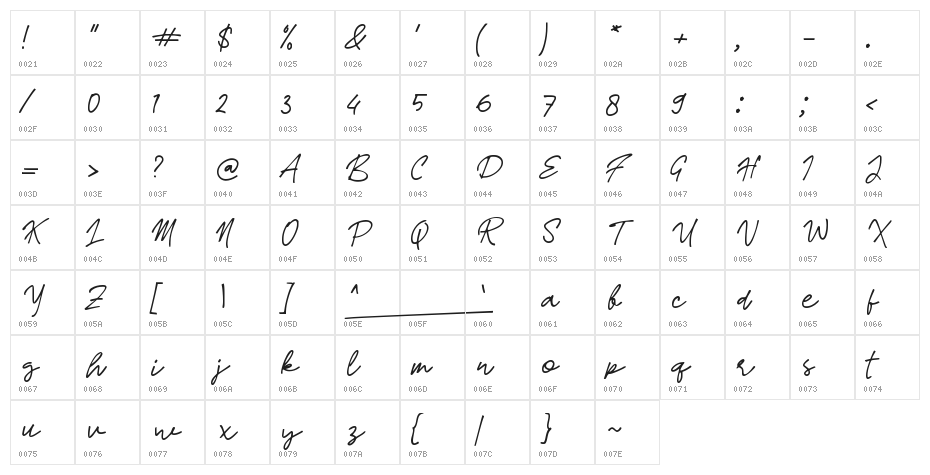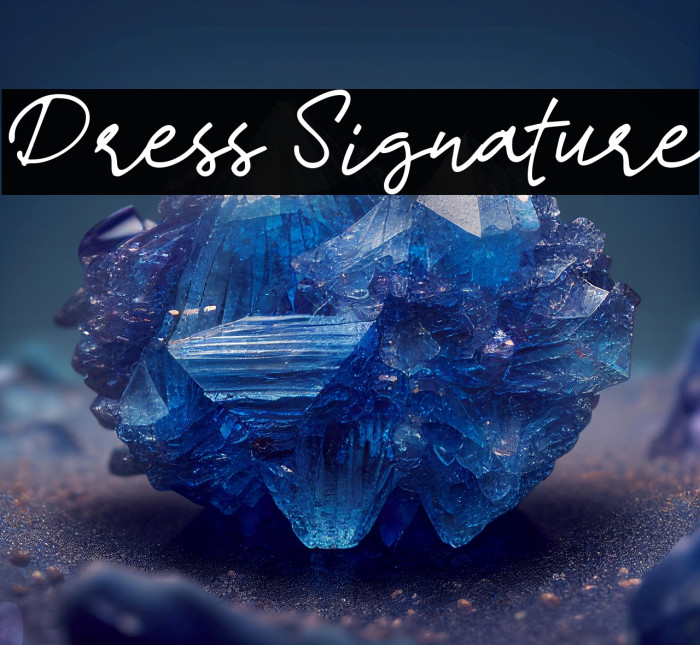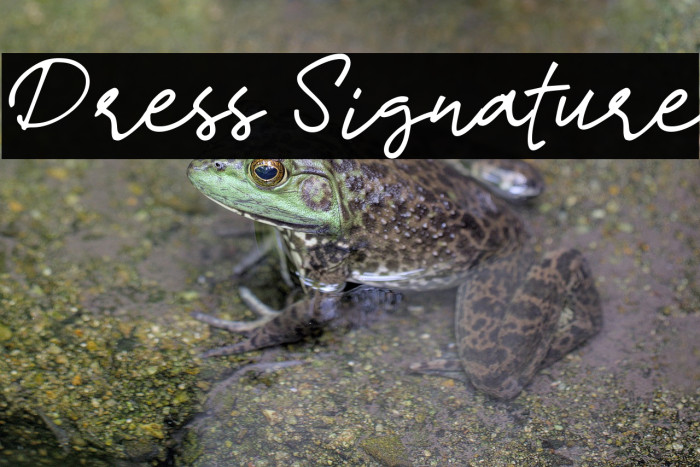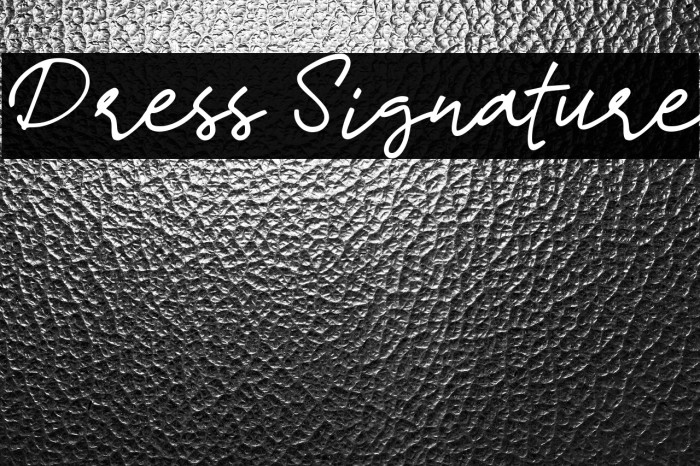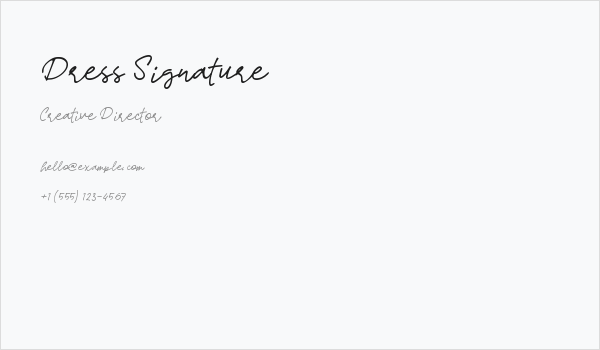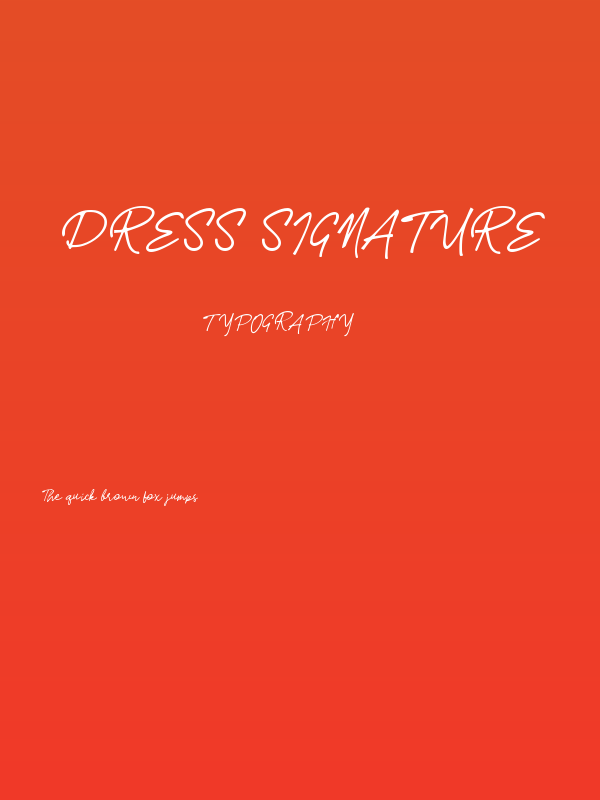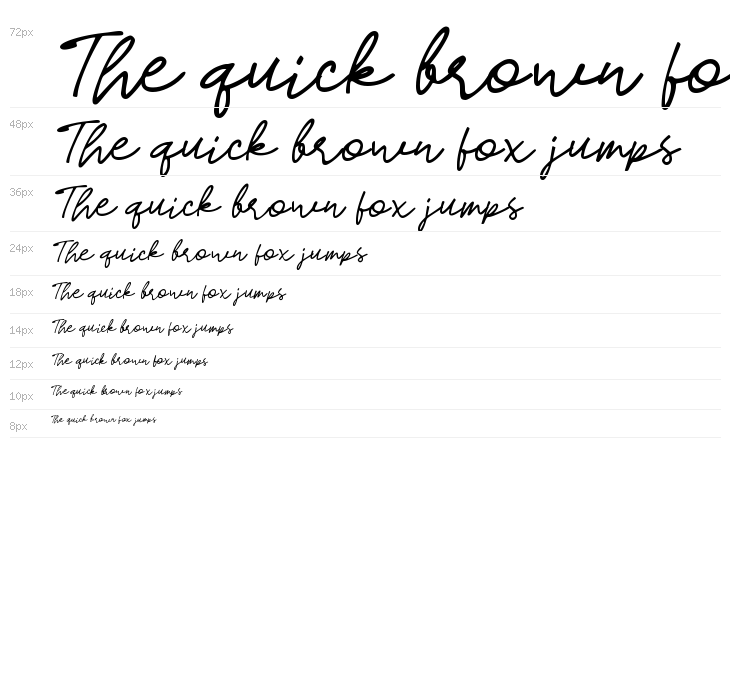
Dress Signature Font
Dress Signature Description
This font exudes a sophisticated and elegant handwritten style, reminiscent of a personal signature. The characters are fluid and connected, creating a seamless flow that enhances its cursive nature. Each letter is crafted with a slight slant, adding to its dynamic and lively appearance. The uppercase letters are bold and prominent, while the lowercase letters maintain a consistent rhythm and balance. The numerals are clear and legible, matching the overall aesthetic of the font. Special characters are thoughtfully designed to complement the script style, making it versatile for various uses.
| Proposed Projects | Ideal for wedding invitations, personal branding, elegant stationery, and logo design. |